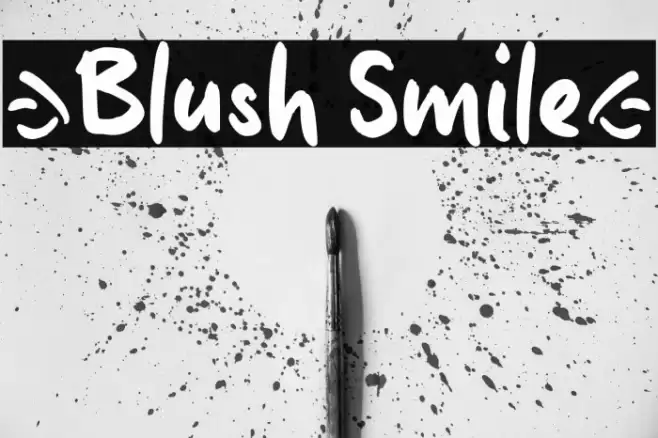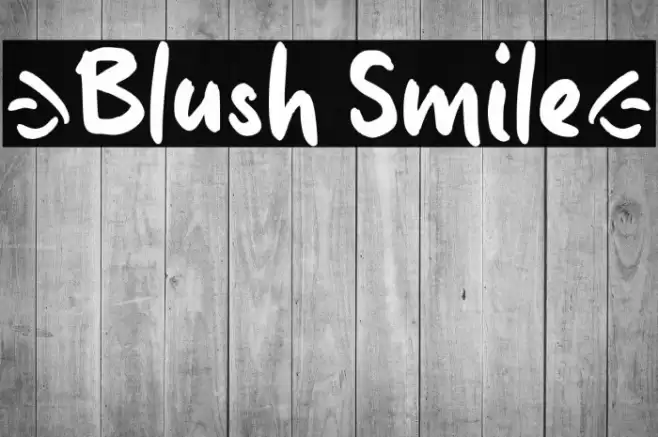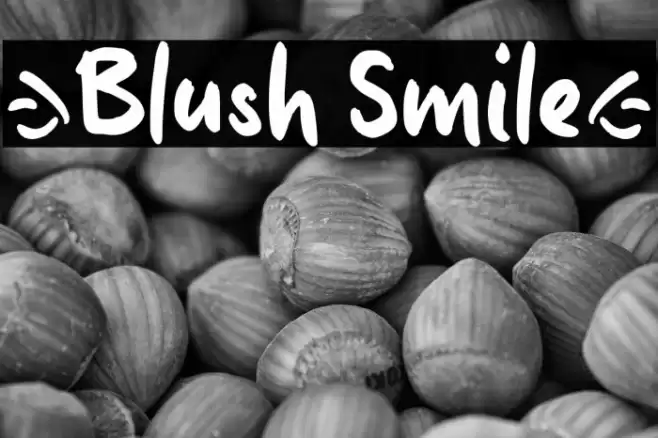
}Blush Smile{ Font
}Blush Smile{ Description
This playful and energetic font features a handwritten style with bold, rounded strokes that give it a friendly and approachable appearance. The characters are slightly irregular, adding a touch of whimsy and personality. The uppercase letters are bold and prominent, while the lowercase letters maintain a consistent flow, making it suitable for casual and informal designs. The numerals are clear and easy to read, and the special characters complement the overall style with their playful curves and shapes. This font is perfect for projects that require a personal touch, such as greeting cards, children's books, or playful branding.
A bold, handwritten font with playful, rounded strokes and a friendly appearance from Uncategorized fonts.
- Proposed Projects: Greeting cards, children's books, playful branding, informal invitations.
- Overall Style: Playful, Casual
- Use Case: Logos, Headlines, Informal Text